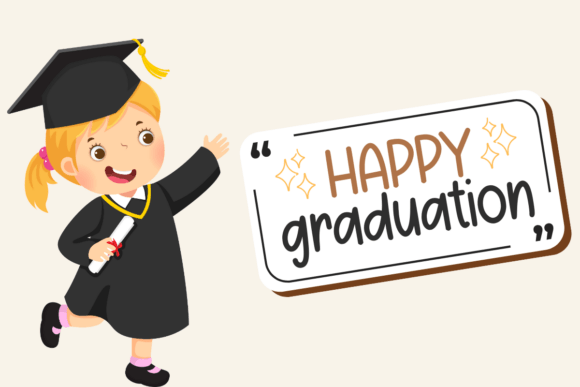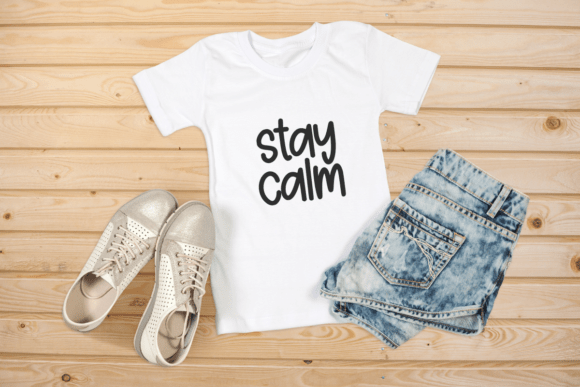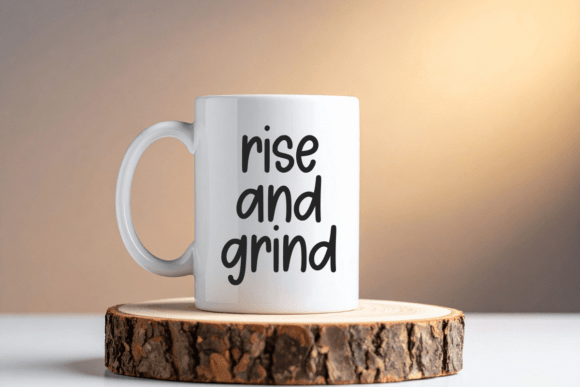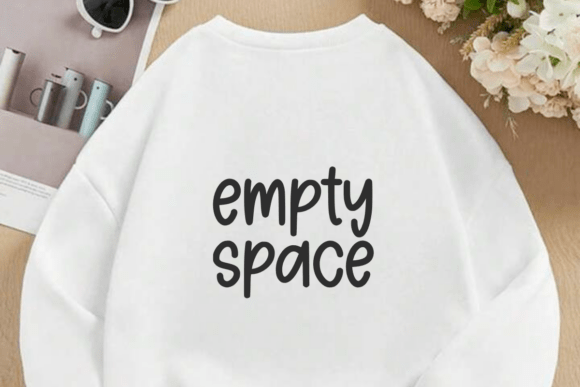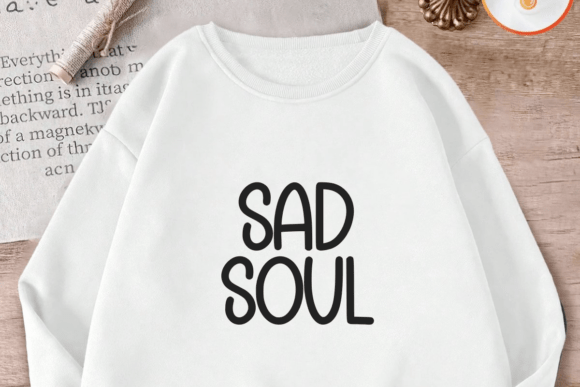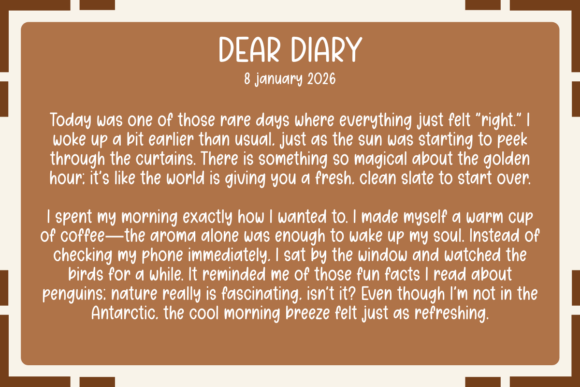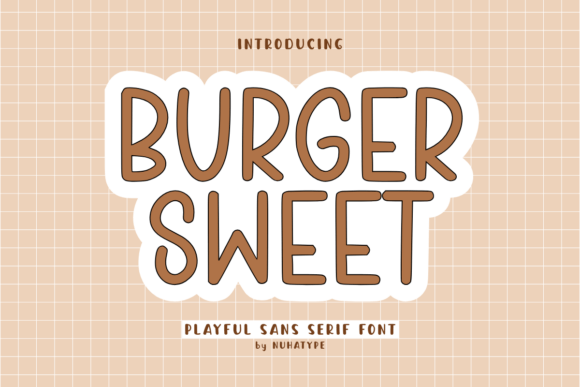
Discover the Secret to Making Your Brand Bite
Have you ever stared at a menu board, mesmerized by the colorful fonts and playful typography that scream “Eat me!”? That’s exactly what happens when designers tap into the power of the right font – and today, we’re diving into the delightful world of the Burger Sweet Font.
This charming display font is more than just a pretty face; it’s a carefully crafted tool designed to make your brand shine in the fast-paced world of food, fashion, and fun. With its bubbly silhouette and bouncy baseline, the Burger Sweet Font adds a warm, personal touch that’s guaranteed to make your audience smile.
For designers, the Burger Sweet Font is a game-changer – offering a unique blend of style and legibility that’s perfect for everything from culinary branding to vibrant marketing campaigns.
Burger Sweet Font Key Features
- Font Family: Burger Sweet Font is a unique and playful sans-serif font, ideal for food and restaurant branding.
- Unique Characteristics: Burger Sweet Font features rounded corners, smooth lines, and a friendly feel, making it perfect for creating a welcoming atmosphere in restaurants and cafes.
- Style Variations: The font family includes multiple styles, including regular, bold, italic, and bold italic, offering flexibility and creativity in design.
Burger Sweet Font Review
Overall, I’d say the Burger Sweet Font is a fun, playful option for food-related designs, particularly for burgers and sweet treats. ✨ Here are some things that work well:
- Unique, whimsical design that adds a touch of personality to your designs
- Works well for titles, headings, and short paragraphs of text
- Suitable for modern, trendy designs, especially in the food industry
However, I do have some concerns:
- May not be as readable in smaller font sizes or longer blocks of text ⚠️
- Limited language support, which might be a issue for international designs
- Not ideal for formal or traditional designs, as it’s quite casual
Overall, I think the Burger Sweet Font is a great addition to any designer’s toolkit, but it’s essential to understand its limitations and use it in the right context. With careful consideration, it can add a lot of charm and personality to your designs.
Burger Sweet Font is ideal for:
- Restaurant and cafe signage
- Menu design
Remember to always use the font in a way that is consistent with your brand identity and messaging.